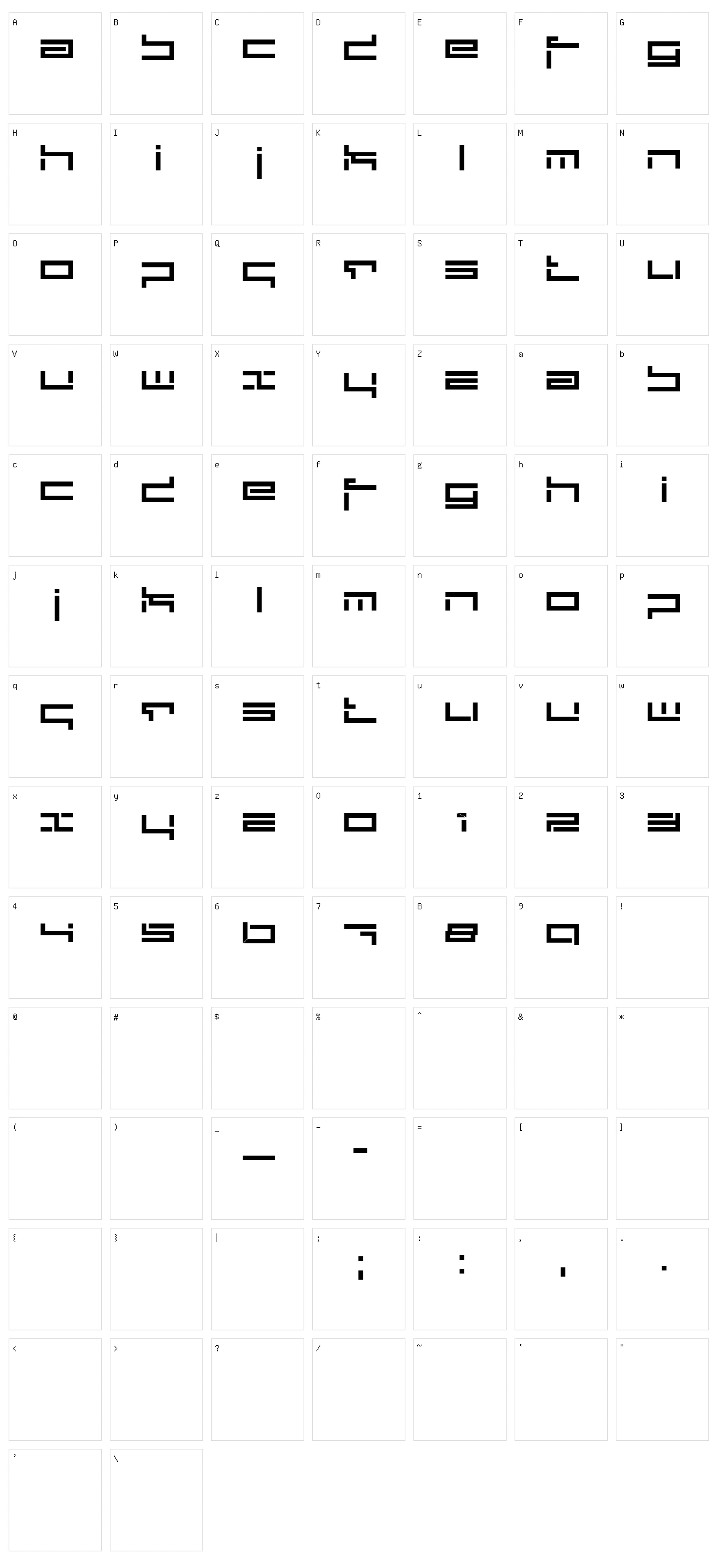
The free font Depthcore Public is carefully designed by Rob "Yoozer" Janssen, showcasing a thoughtful balance of creativity and usability and falls under the Square font style. When you download the ZIP file, it contains only 7.54 KB of font files, making it lightweight and quick to download. Please review the license details below to understand permitted usage and distribution rights. If license information is not available, we recommend using this font for personal projects only or contacting the author directly for commercial usage permissions.